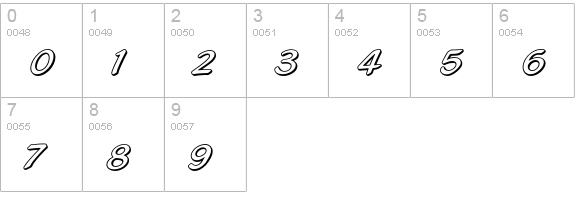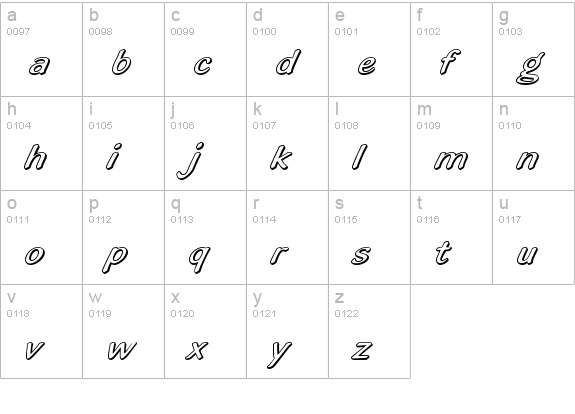
Highlight Std Font Details
Highlight Std is a modern and stylish font that adds a touch of sophistication to any design project. With its clean lines and sleek appearance, Highlight Std is perfect for creating eye-catching headlines, titles, and logos. This versatile font is suitable for a wide range of uses, from branding to editorial design. What makes Highlight Std even more appealing is that it is completely free to download at FontsMarket.com. Whether you are a graphic designer, a student, or a small business owner, you can easily access this premium font without any cost. Don't miss out on the opportunity to enhance your projects with the elegance and professionalism of Highlight Std. Download it today and elevate your designs to the next level.